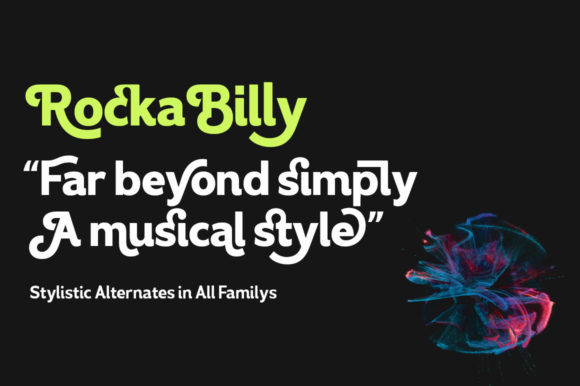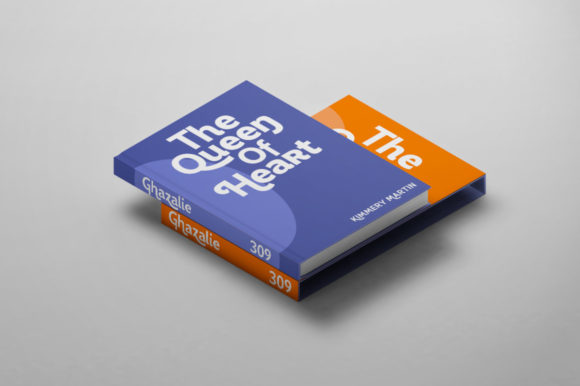
Contage Font
Contage is a superb display font family, designed to look modern and minimal in any setting. Carved for optimal readability, its clean geometric look is perfect for things like fashion, magazine, logo, branding, headers, titles, or corporate brochure designs.